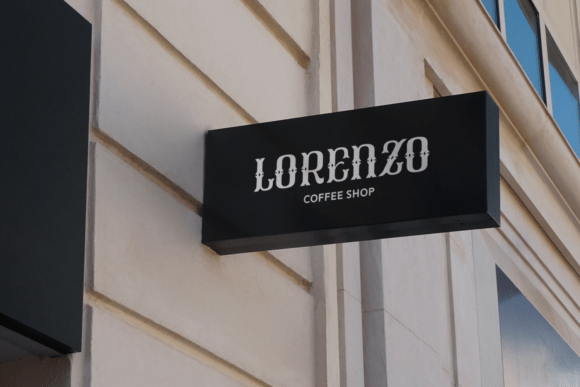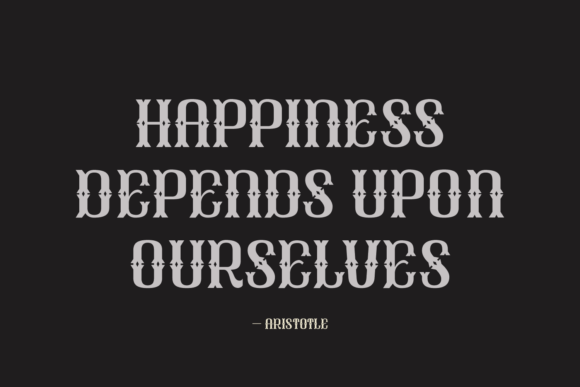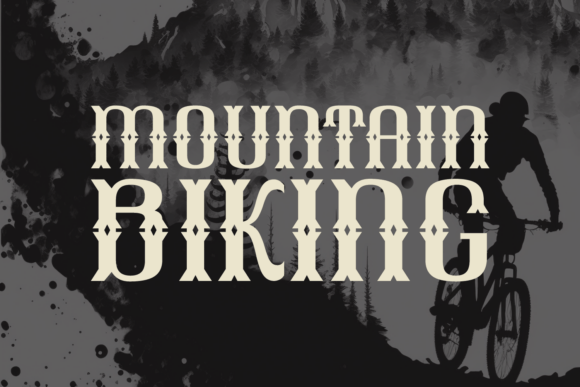
Introduction to Classic Basics Font
Immerse yourself in a timeless touch of design with “Classic Basics,” a unique font that combines the characteristics of Blackletter and Vintage aesthetics.
Kneaded with the well-aged charm of Old Style and Grunge fonts, ‘Classic Basics’ is a clean brushstroke of creativity as refreshing as a crafter’s dream With its ability to splatter across your website canvases and magazine layouts, it adds a vintage charm that’s hard to resist.